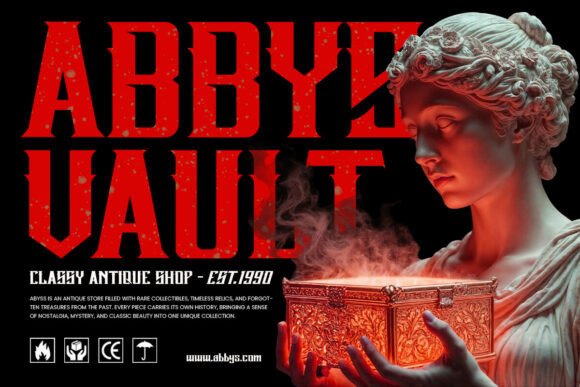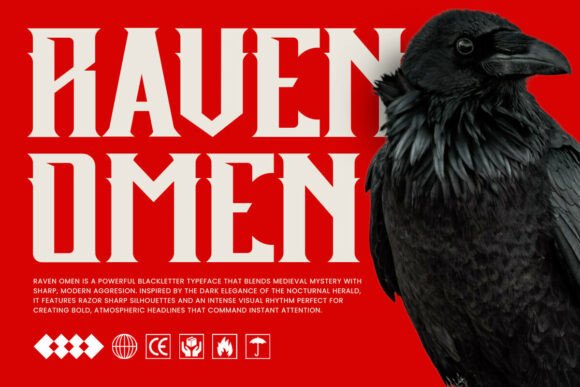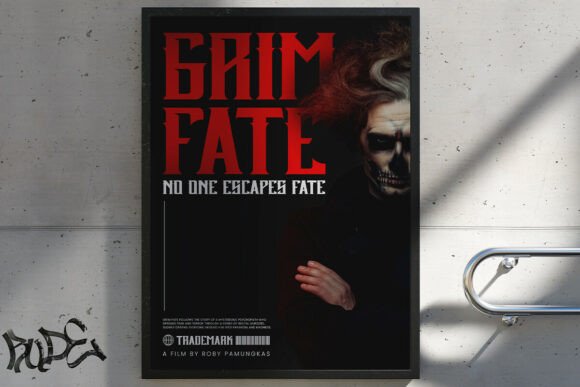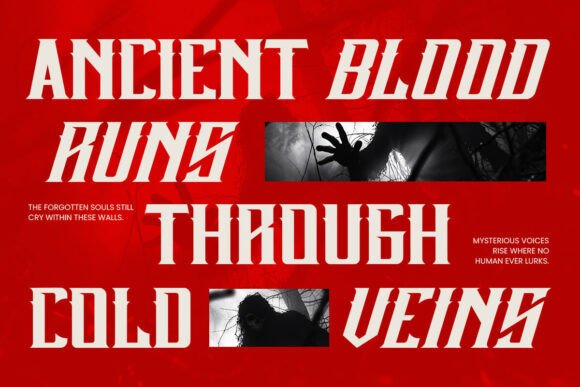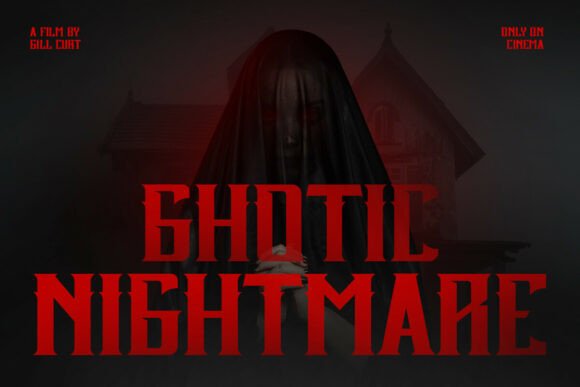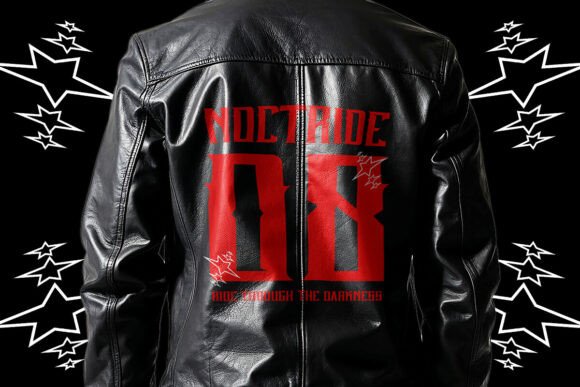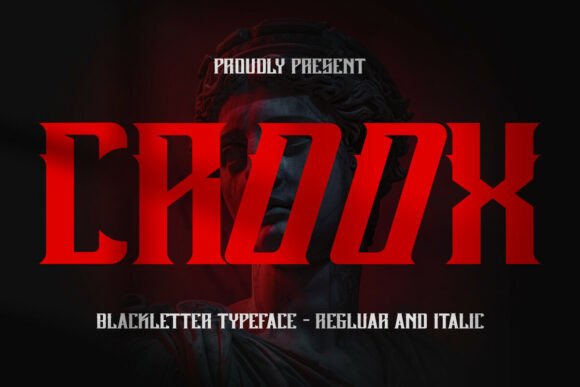
Bring a Mysterious and Elegant Edge to Your Designs with Croox Font
In the world of typography, fonts play a crucial role in conveying the tone and aesthetic of a design. For designers and crafters looking to add a touch of mystery and elegance to their work, the Croox font is an excellent choice. This powerful blackletter typeface seamlessly blends medieval mystery with sharp, modern aggression, making it perfect for creating bold, atmospheric headlines that command instant attention.
The Inspiration Behind Croox
Croox is inspired by the dark elegance of medieval times and the razor-sharp silhouettes of modern design. The font’s creator aimed to capture the essence of blackletter typography, known for its dramatic and expressive letterforms, and infuse it with a contemporary edge. The result is a font that exudes an intense visual rhythm, making it ideal for designers who want to create striking and memorable designs.
Key Features of Croox Font
- Medieval Mystery: Croox font boasts a classic blackletter style, reminiscent of medieval manuscripts and Gothic architecture. Its intricate and ornate letterforms evoke a sense of mystery and sophistication.
- Sharp, Modern Aggression: What sets Croox apart from traditional blackletter fonts is its sharp, modern twist. The font features clean lines, precise cuts, and a bold presence that gives it a contemporary feel.
- Versatility: Croox is designed to be versatile, making it suitable for a wide range of design projects, from posters and flyers to logos and branding materials.
- Legibility: Despite its ornate appearance, Croox is surprisingly legible, even at smaller sizes. This makes it a practical choice for designs that require both style and substance.
Uses of Croox Font
Croox is an incredibly versatile font that can be used in various design projects, including:
- Posters and Flyers: Create eye-catching posters and flyers with Croox’s bold and atmospheric lettering.
- Logos and Branding: Use Croox to create unique and memorable logos that stand out from the crowd.
- Packaging Design: Add a touch of elegance and sophistication to your packaging designs with Croox.
- Digital Media: Croox can also be used in digital media, such as social media graphics, website headers, and email marketing campaigns.
Tips for Using Croox Font Effectively
To get the most out of Croox, here are some tips for using it effectively in your designs:
- Pair with Neutral Fonts: Pair Croox with neutral fonts, such as sans-serif or serif fonts, to create contrast and balance in your design.
- Experiment with Colors: Croox looks great in bold, rich colors. Experiment with different colors to find the perfect combination for your design.
- Play with Size and Scale: Don’t be afraid to experiment with different sizes and scales to create visual interest and hierarchy in your design.
In conclusion, Croox font is a powerful and elegant typeface that can add a touch of mystery and sophistication to your designs. Its unique blend of medieval mystery and sharp, modern aggression makes it perfect for creating bold, atmospheric headlines that command instant attention. With its versatility, legibility, and range of uses, Croox is an excellent choice for designers and crafters looking to elevate their designs to the next level.